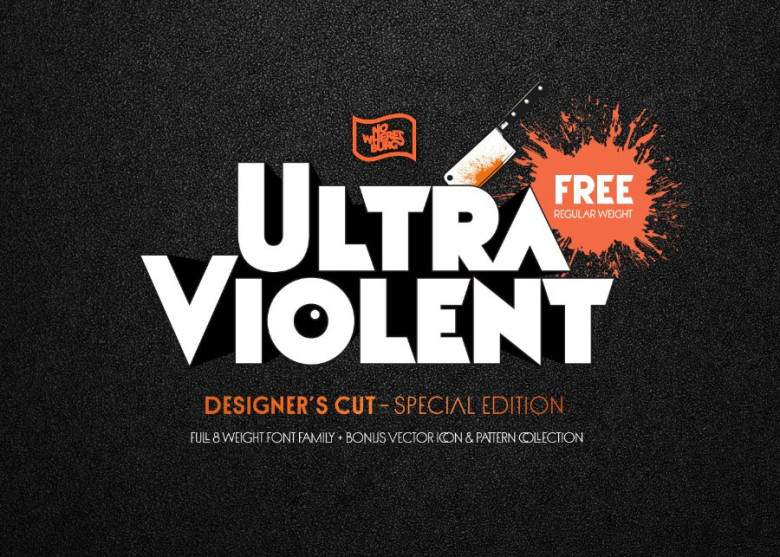
UltraViolent Typeface
Introducing NWB UltraViolent ! UltraViolent Font designed by Nowheresburg. NWB Ultraviolent is an 8 weight geometric sans-serif display typeface inspired by the poster type of A Clockwork Orange. It’s design combines the aesthetics of Futura and the complex ligature structures of Avant Garde and other type design of Herb Lubalin with a clean, modern spin to create a quirkly retro, yet stylish and refined look. In addition to 175 ligatures it also features alternate characters for “A”, “Q” and two special alternate “O” glyphs only available in this package.